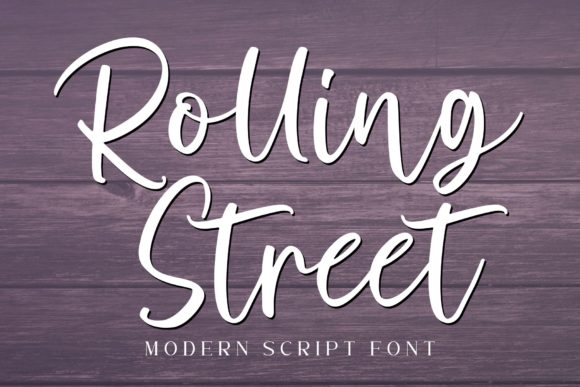
Welcome to the world of Rolling Street Font, the enchanting script font family that will make your Instagram creations shine brighter than stars on a clear night! Step into a realm of pure elegance and effortless style as you explore this modern marvel. Immerse yourself in the beauty of natural and flowing handwritten characters, each meticulously crafted to evoke a sense of genuine authenticity.
At first glance, you'll be captivated by Rolling Street's incredibly distinct and relaxed style. Its graceful curves and playful swashes dance across the page, creating a visual spectacle that's impossible to ignore. Whether you're crafting heartfelt messages, captivating captions, or stunning graphics, this font will elevate your content to new heights of creativity.
Rolling Street isn't just a font; it's an experience. It's a journey into the world of imagination, where your words come alive with personality and charm. It's the perfect companion for those who seek to express themselves with originality and flair. With its diverse range of characters, including uppercase, lowercase, numerals, and symbols, Rolling Street provides endless possibilities for customization. Unleash your creativity and let your designs flourish with limitless options.
But what truly sets Rolling Street apart is its innate ability to connect with your audience on a deeper level. Its friendly and approachable style invites readers to engage with your content, creating a sense of intimacy and connection. Whether you're sharing personal stories, promoting your brand, or simply expressing your thoughts, Rolling Street ensures that your message resonates with clarity and impact.
So, why settle for ordinary fonts when you can embrace the extraordinary? Choose Rolling Street Font and embark on a creative adventure like no other. Let your designs speak volumes, let your words dance with grace, and let your Instagram presence radiate with an allure that's impossible to resist. Make a statement, stand out from the crowd, and leave an unforgettable impression with every post, every story, and every visual masterpiece you create.